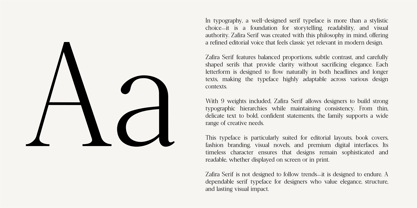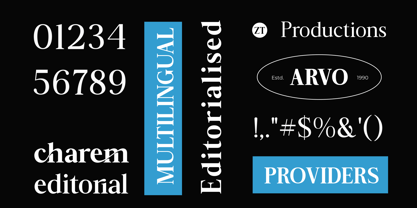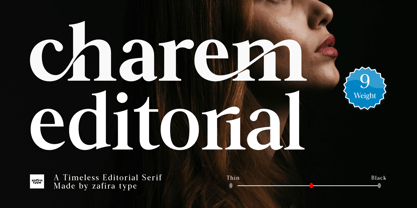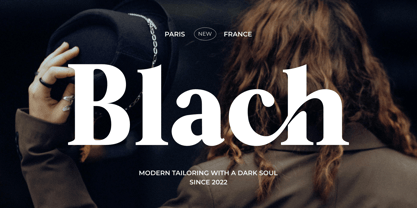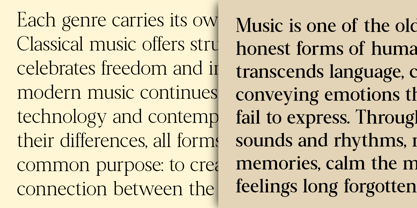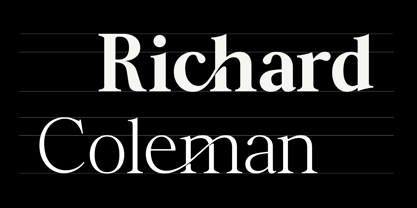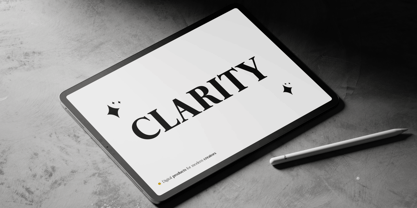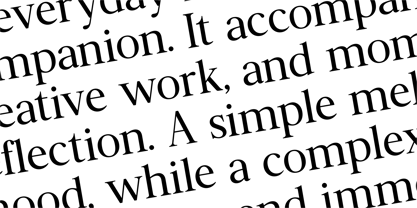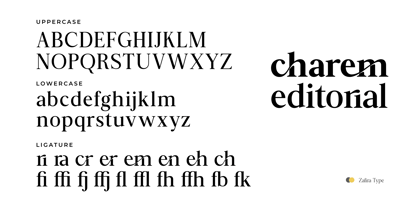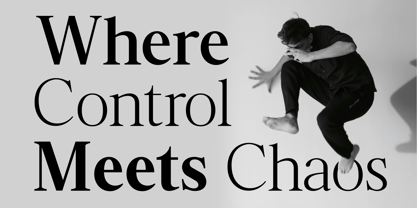
Charem Editorial
von Zafira Type
Die Schriftfamilie Charem Editorial wurde von Su Hirno entworfen und von Zafira Type veröffentlicht. Charem Editorial enthält 9 Stile und Familienpaketoptionen. Mehr über diese Familie
Charem Editorial is a versatile serif typeface featuring 9 carefully crafted weights, designed to deliver flexibility and consistency across a wide range of design needs. From thin and elegant strokes to strong and bold forms, each weight is balanced to maintain clarity, harmony, and visual rhythm. The family is built on classic serif principles with a modern approach, making it suitable for both contemporary and traditional projects. Charem Editorial works exceptionally well for branding, editorial layouts, headlines, logos, packaging, and long-form text, both in print and digital environments. Its wide weight range allows designers to create clear hierarchy and expressive typography within a single type family.
Designer: Su Hirno
Foundry: Zafira Type